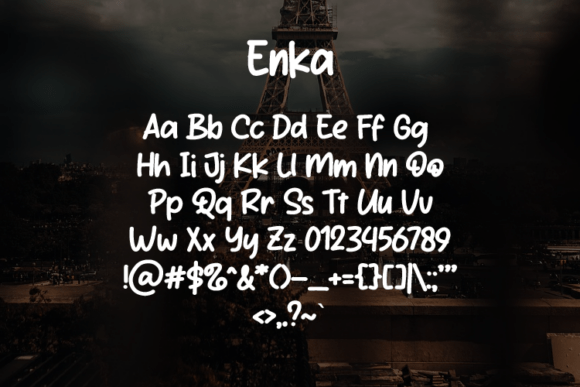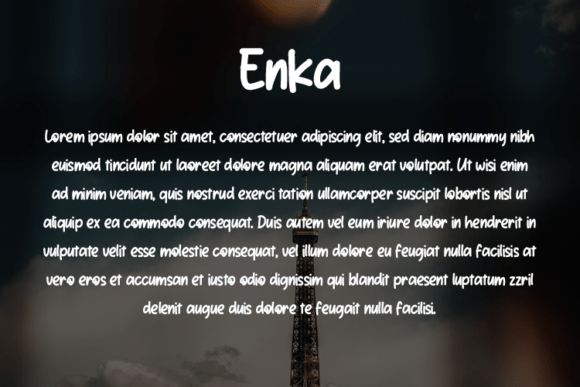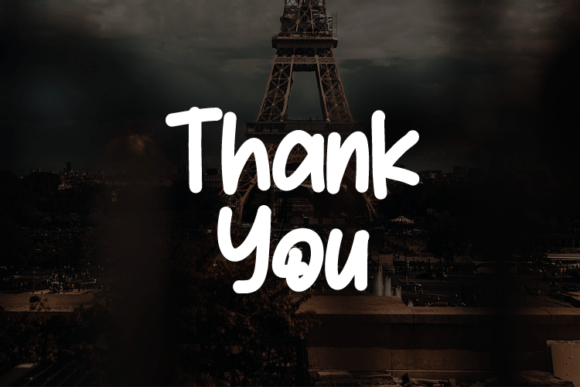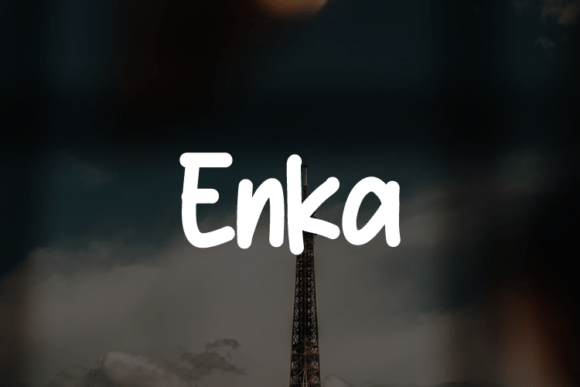
Introduction to Enka Font
Introduction Enka is a modern and elegant typeface designed for flexibility and excellent readability across a wide range of media.
Key Features of Enka Font
Why Choose Enka Font?
Enka Font offers exceptional quality and versatility, making it a valuable addition to your design toolkit. Whether you’re creating for personal projects or commercial use, Enka Font delivers professional results.